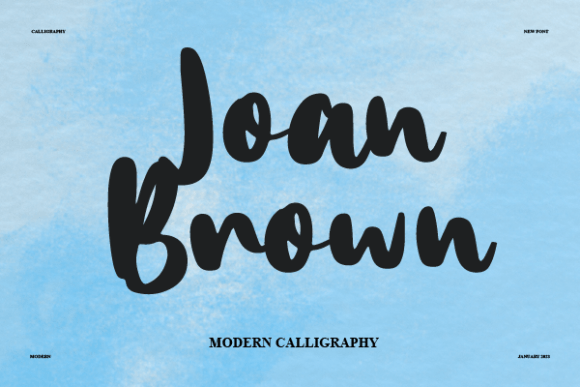
Unleash the Exquisite Charm of Your Creations with Joan Brown Font, the Epitome of Script Elegance
Journey into the realm of breathtaking calligraphy with Joan Brown, a font family born from the fusion of modern aesthetics and bold strokes. Discover the allure of this remarkable script font and let your creativity flourish like never before.
Joan Brown, the brainchild of the talented fiqiart, is not just a font; it's an artistic expression that promises to transform your designs into captivating masterpieces. Its meticulously crafted curves and flourishes evoke a sense of elegance and sophistication, making it the perfect choice for a wide array of projects.
Step into a world of endless creative possibilities with Joan Brown. Its versatility shines through whether you're designing wedding invitations that exude timeless romance, crafting stationary art that oozes charm, or creating social media posts that capture attention. The possibilities are as vast as your imagination.
Joan Brown's graceful strokes bring a touch of refinement to every project. Its ability to effortlessly elevate your designs makes it an invaluable asset for both personal and professional endeavors.